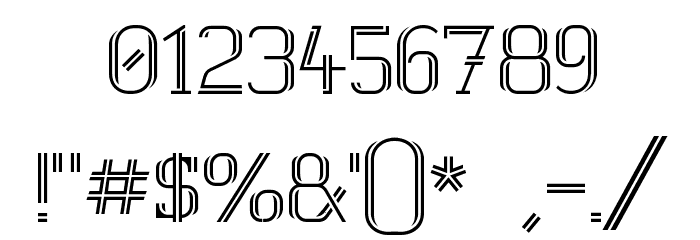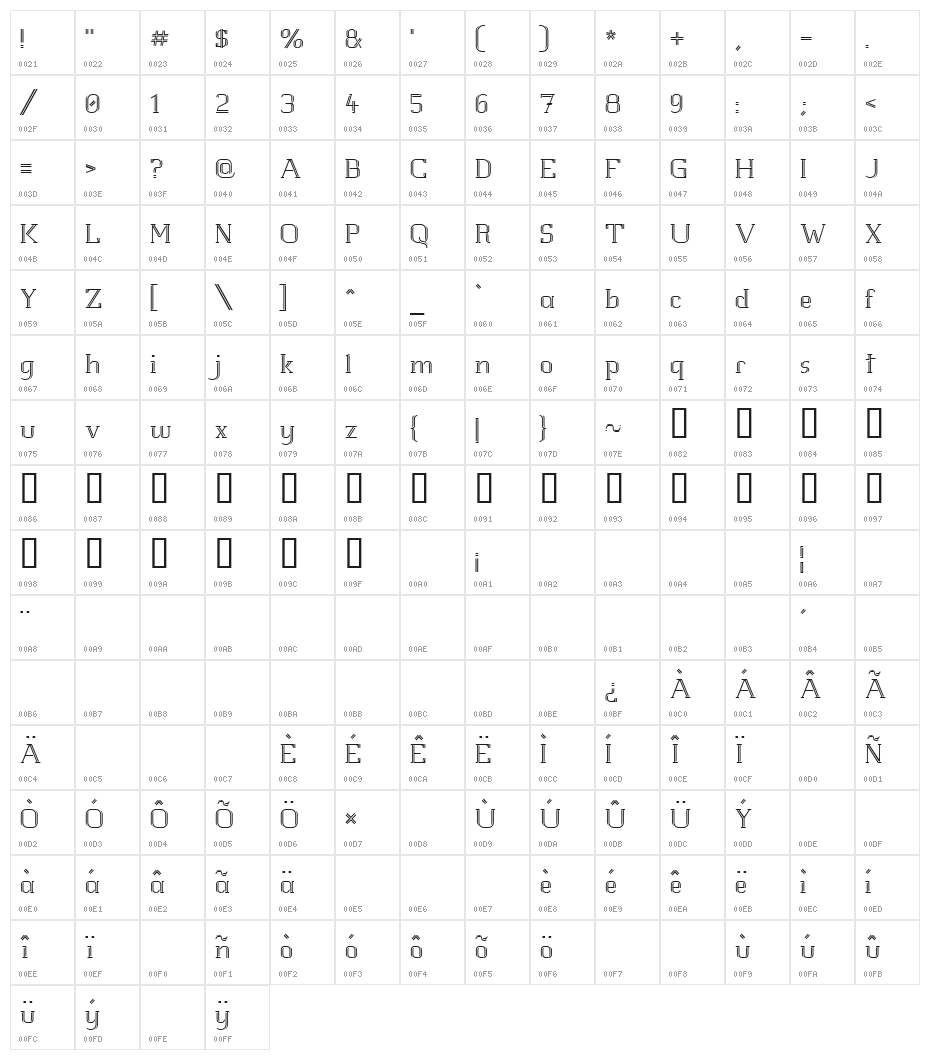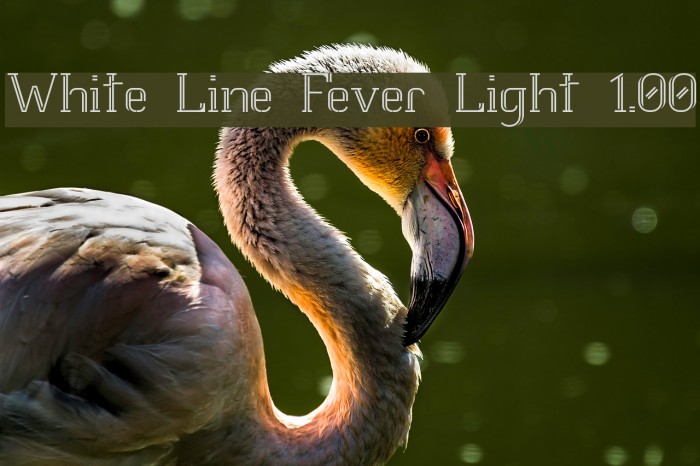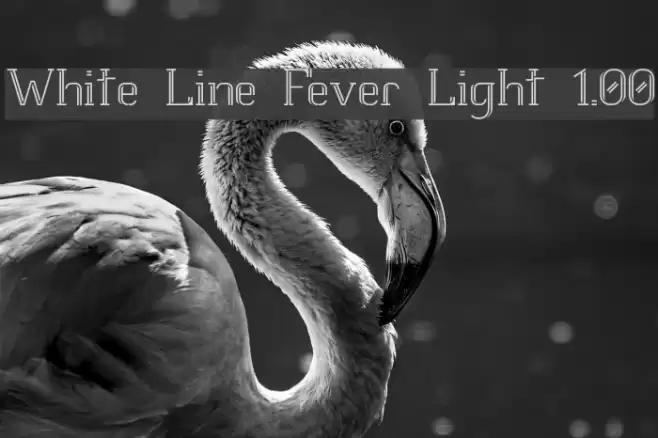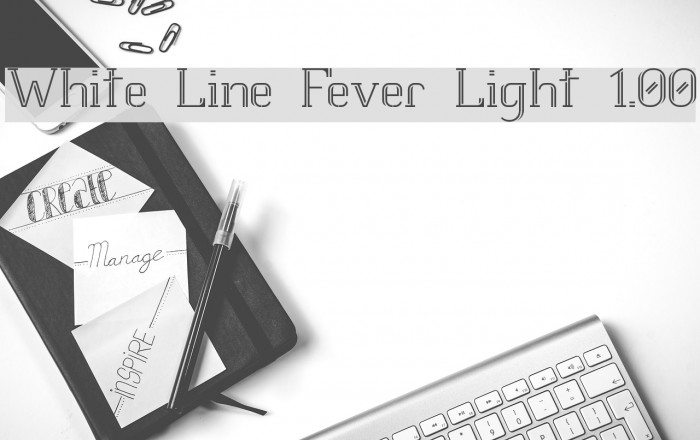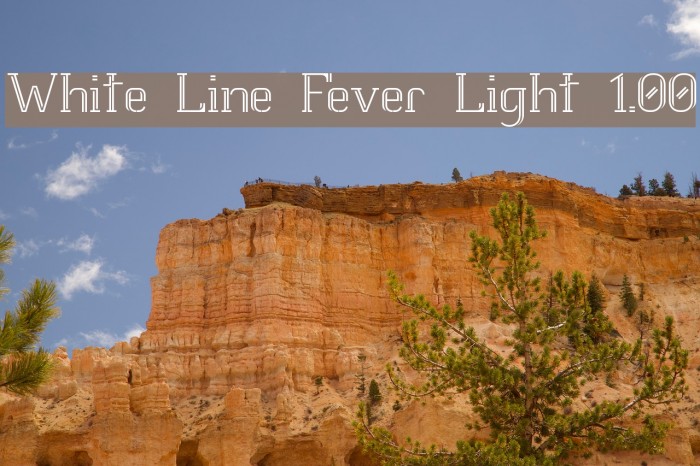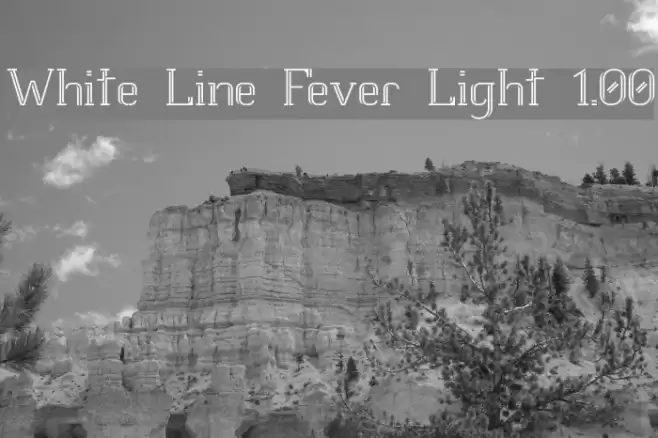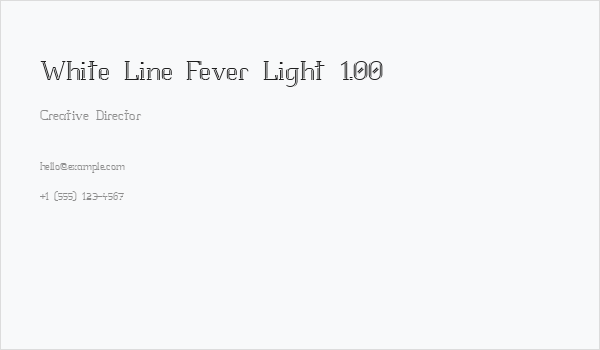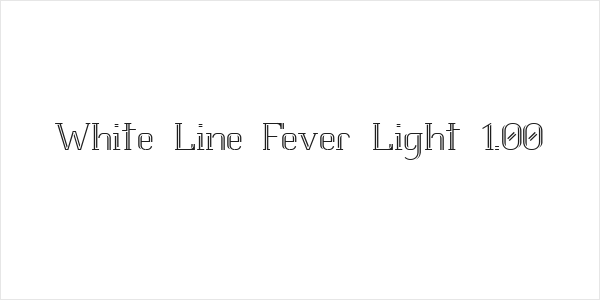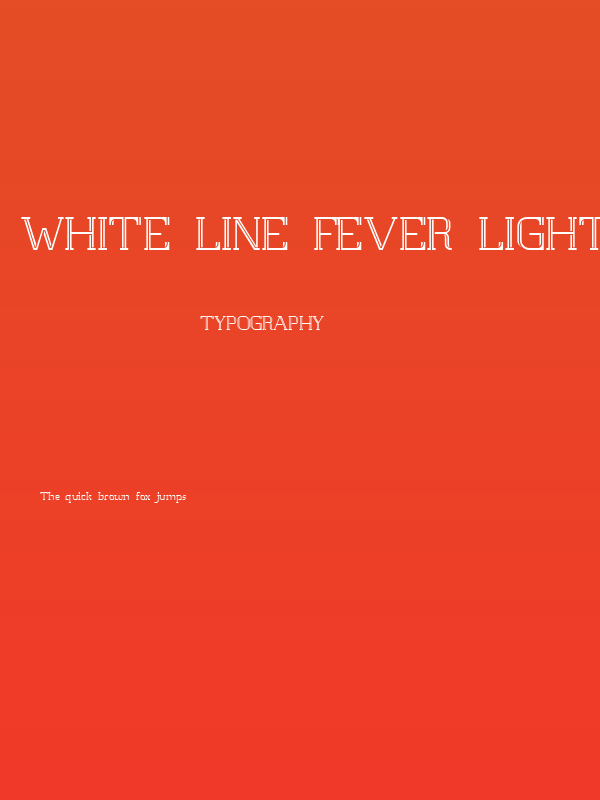
White Line Fever Light 1.00 Font
White Line Fever Light 1.00 Description
This font features a unique, decorative style with a modern twist. The characters are outlined with a double line, creating a hollow effect that adds depth and interest. The uppercase letters are bold and structured, while the lowercase letters maintain a consistent style with slightly softer curves. Numbers and special characters follow the same design principles, ensuring a cohesive look across all elements. The font's geometric precision and clean lines make it suitable for eye-catching designs.
| Proposed Projects | Ideal for branding, posters, and headlines where a striking, modern look is desired. |